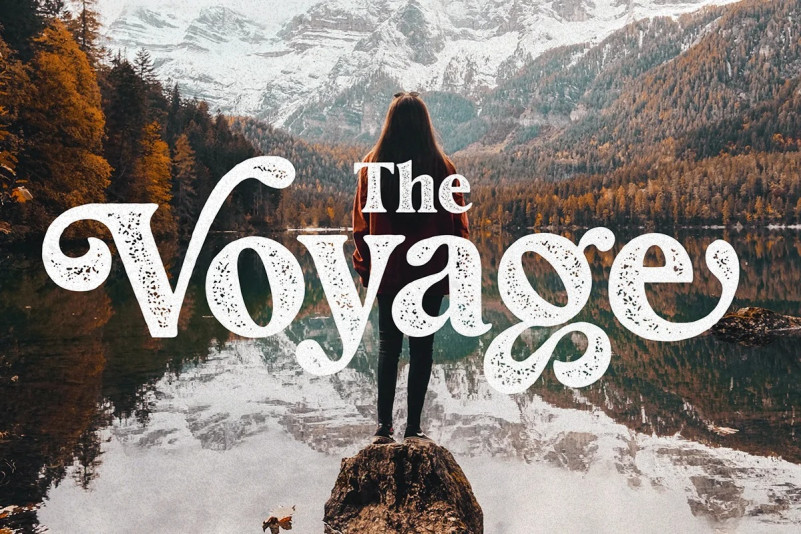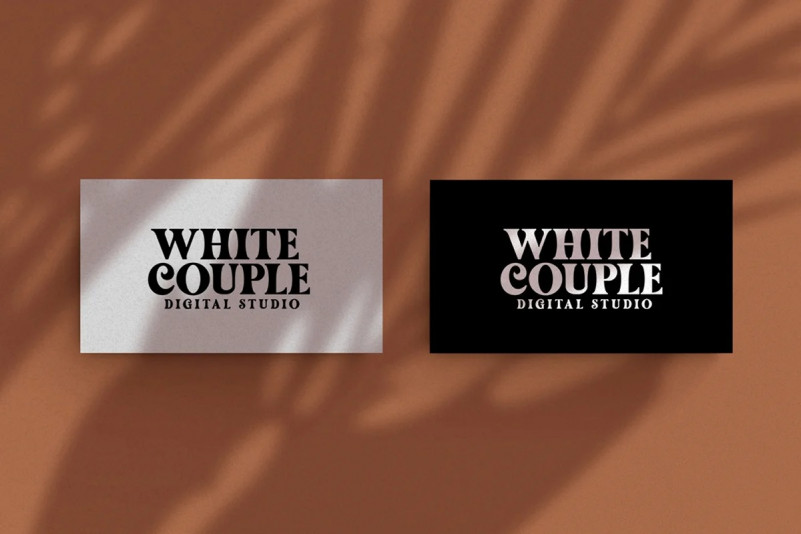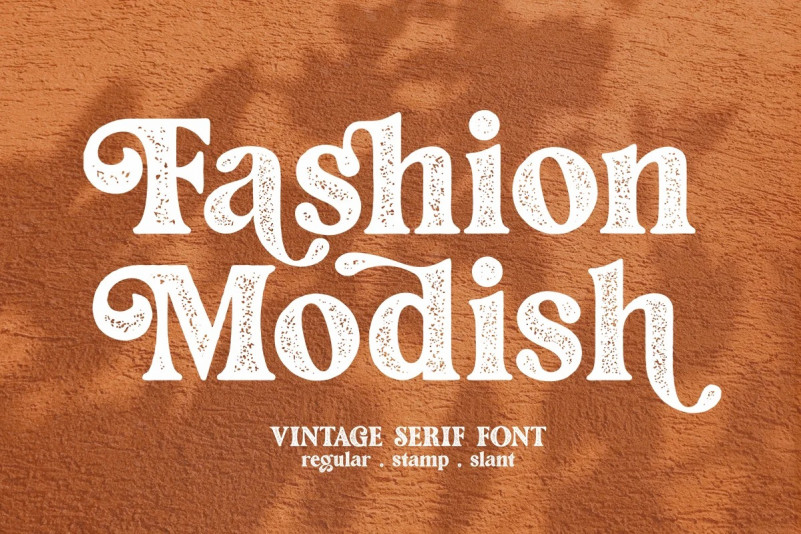
Fashion Stamp Serif Font
Introducing Modish Fashion with a bold and modern vintage style and a touch of stamp effect so you can feel a very distinctive vintage feel.
If your latest project is calling for a touch of class, it’s time to invite Fashion Modish into your home. This beautiful and elegant typeface sports 11 unique fonts, OpenType features such as ligatures and stylistic alternates, and even comes in webfonts. Perfect for posters, logos and stationery, this is one elegant font family just waiting to impress.